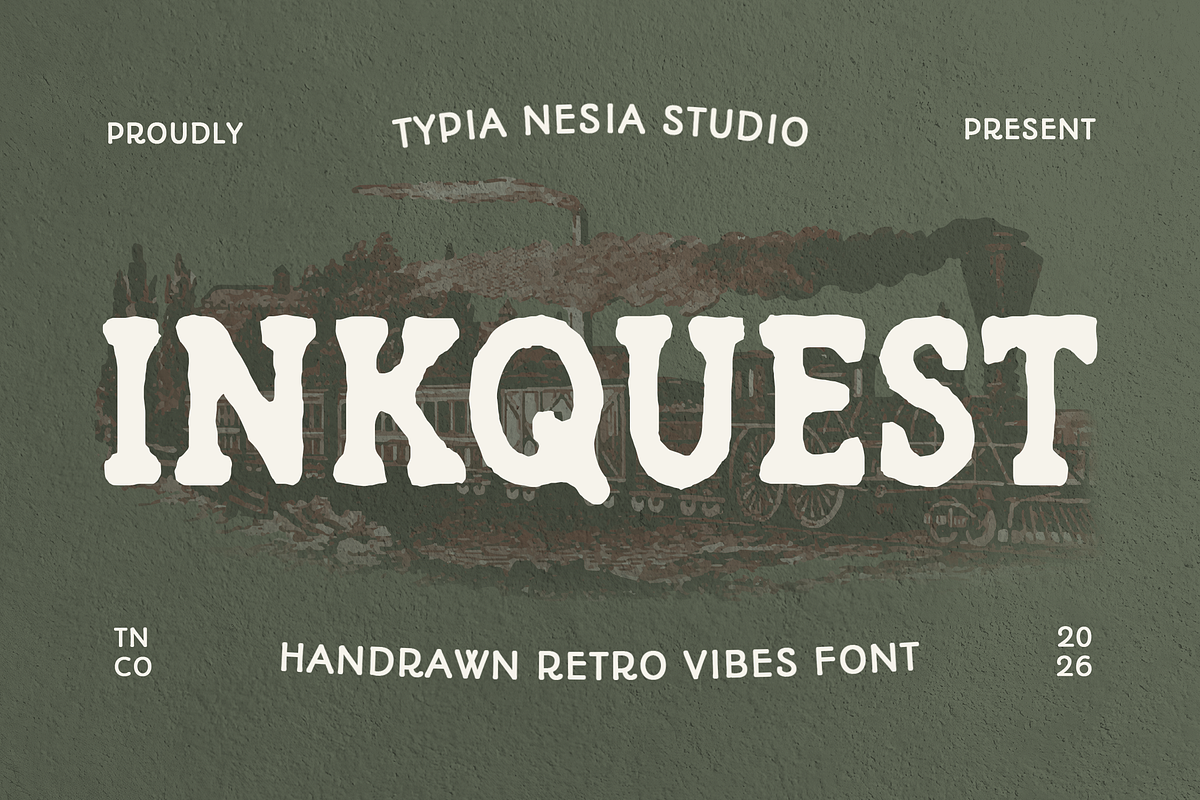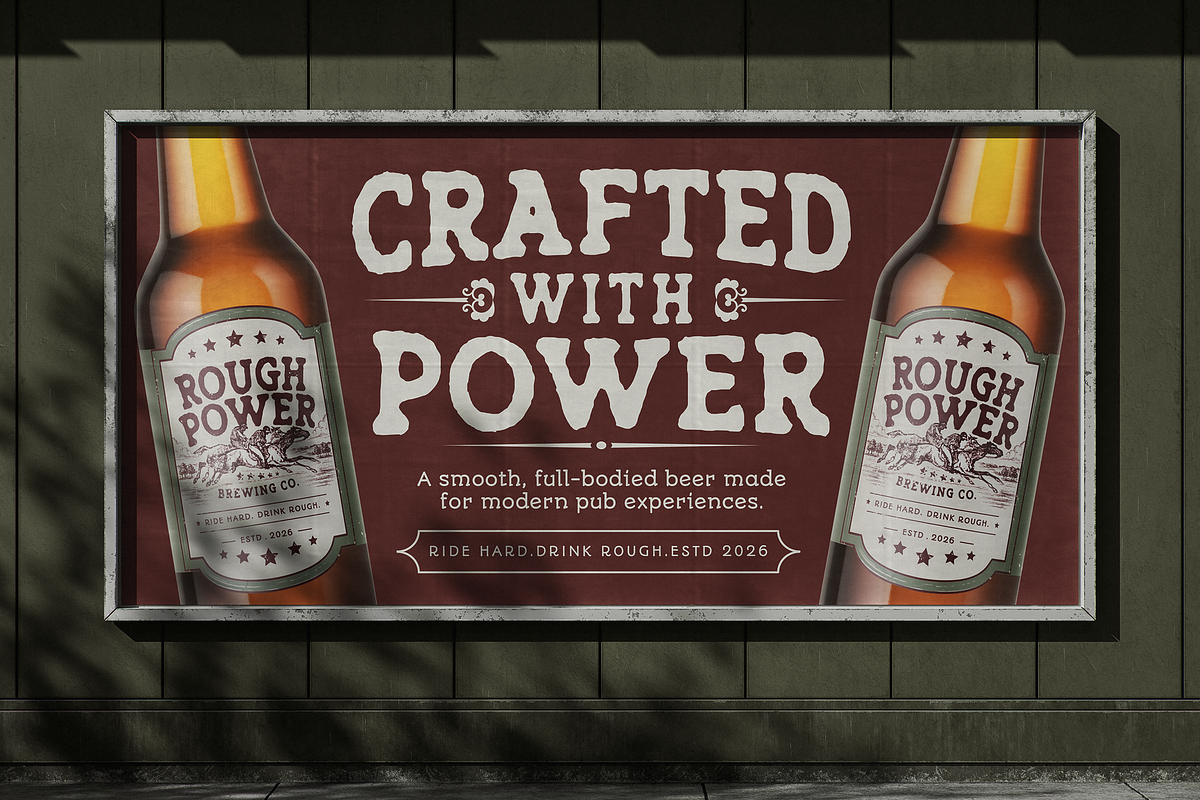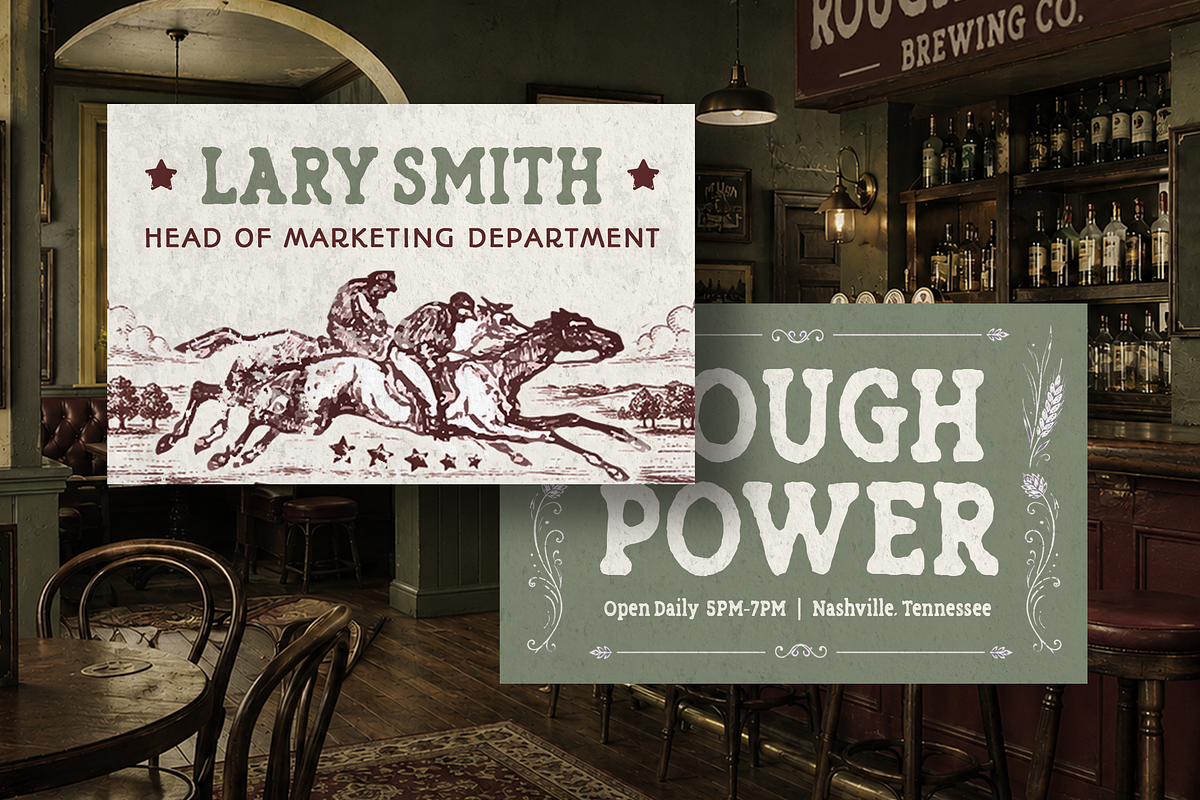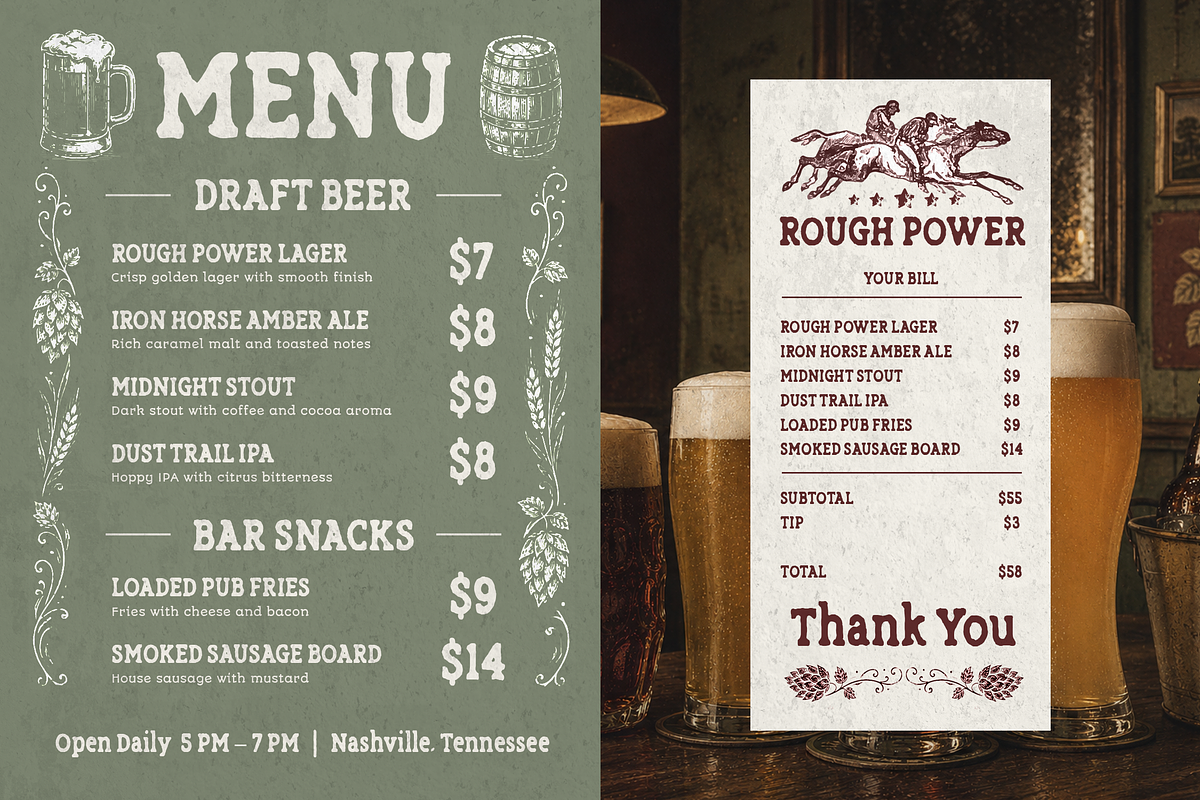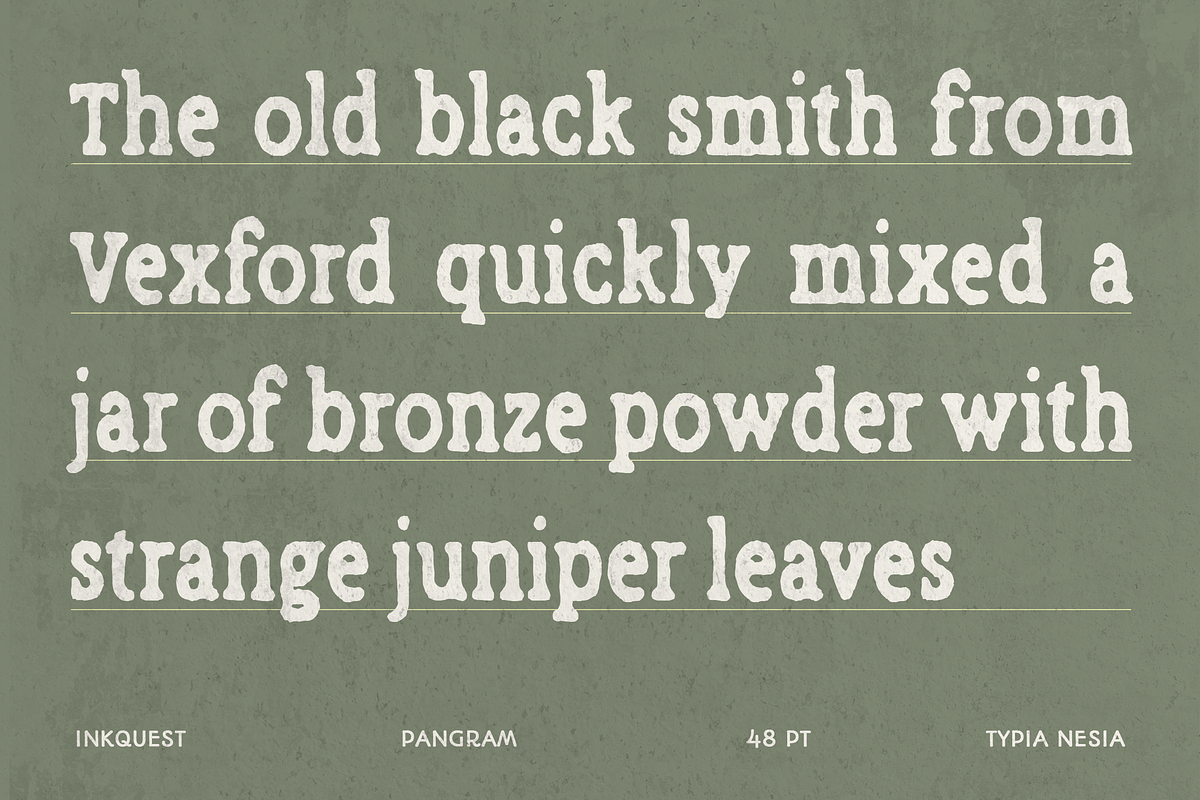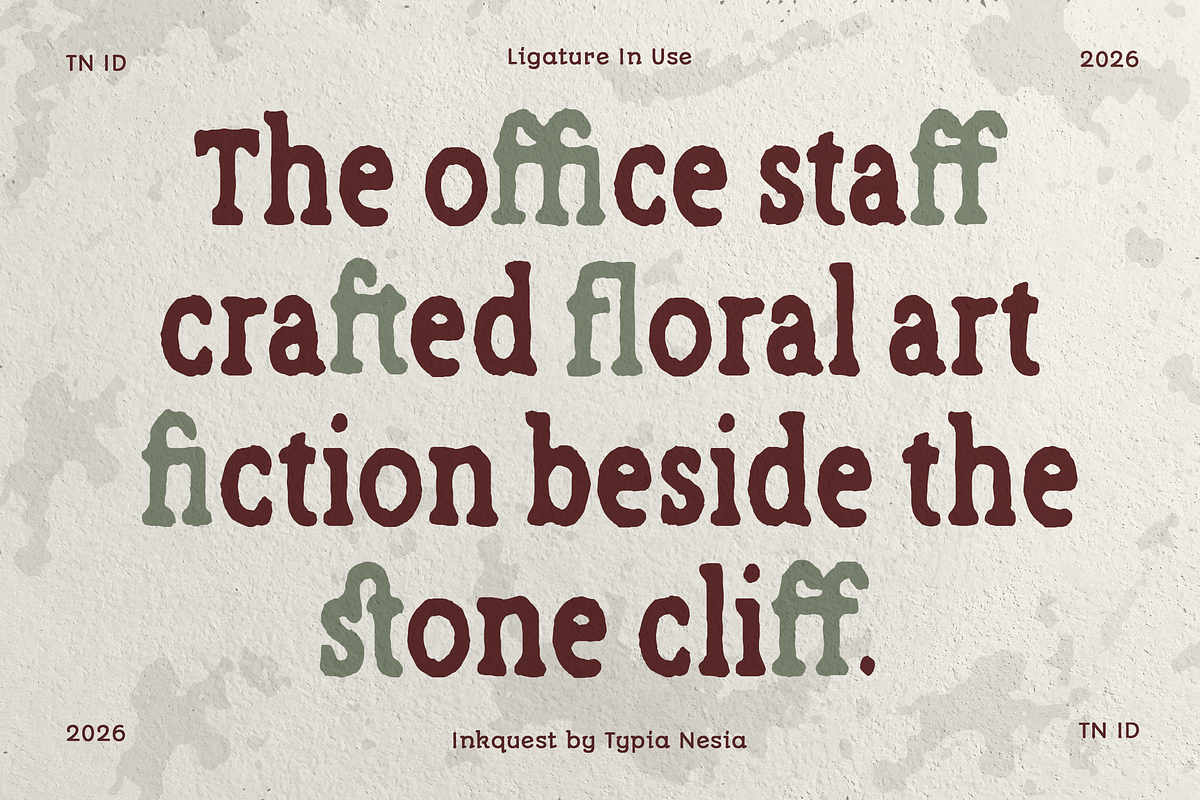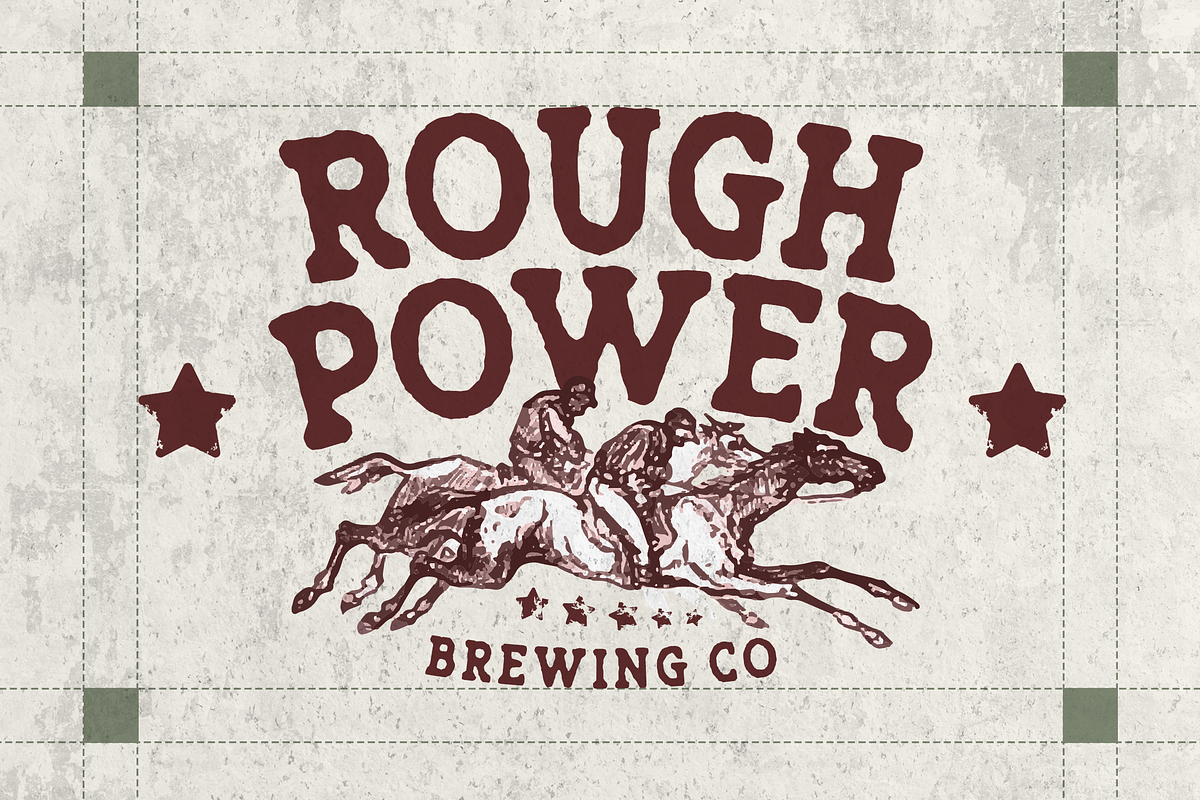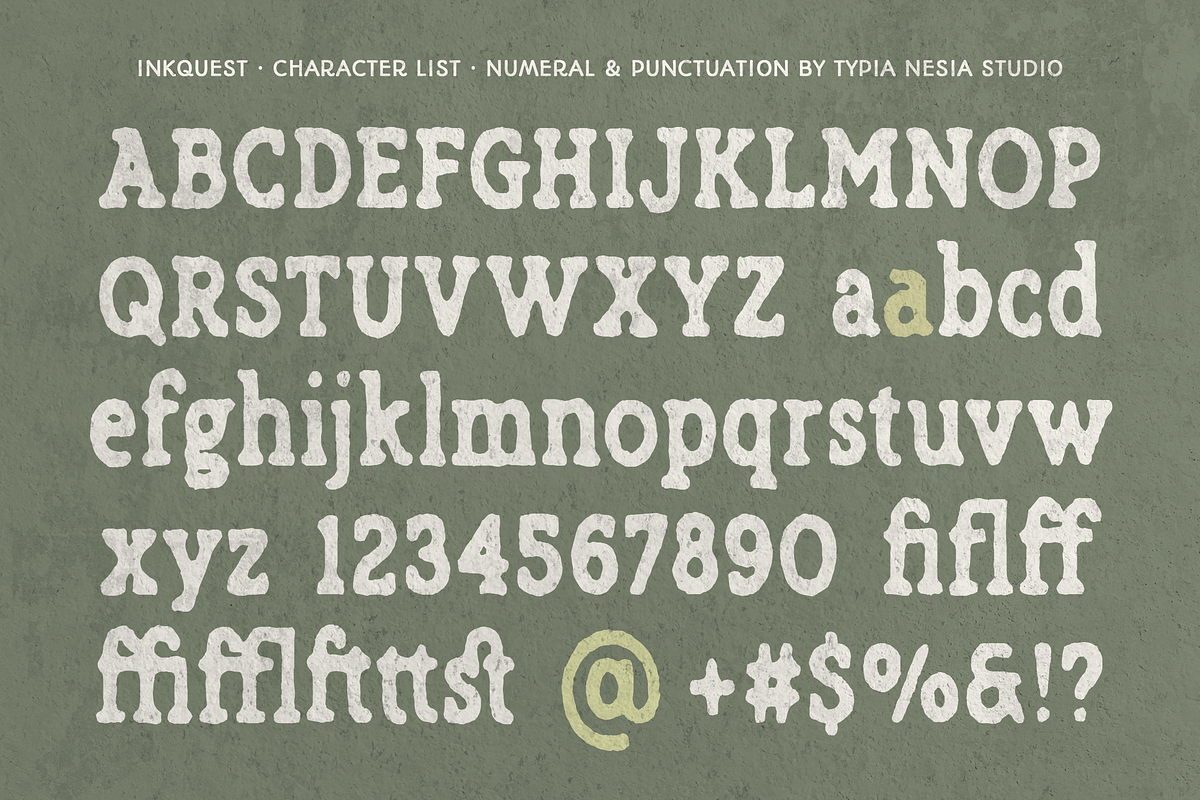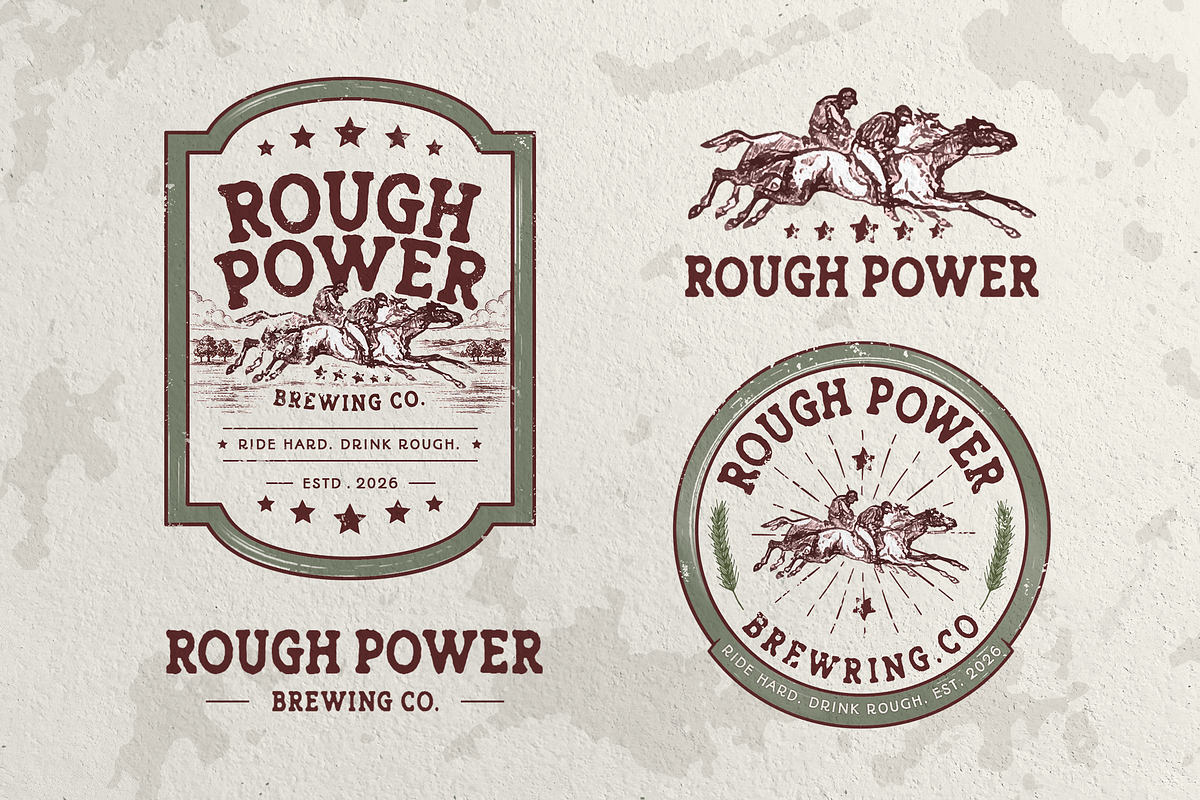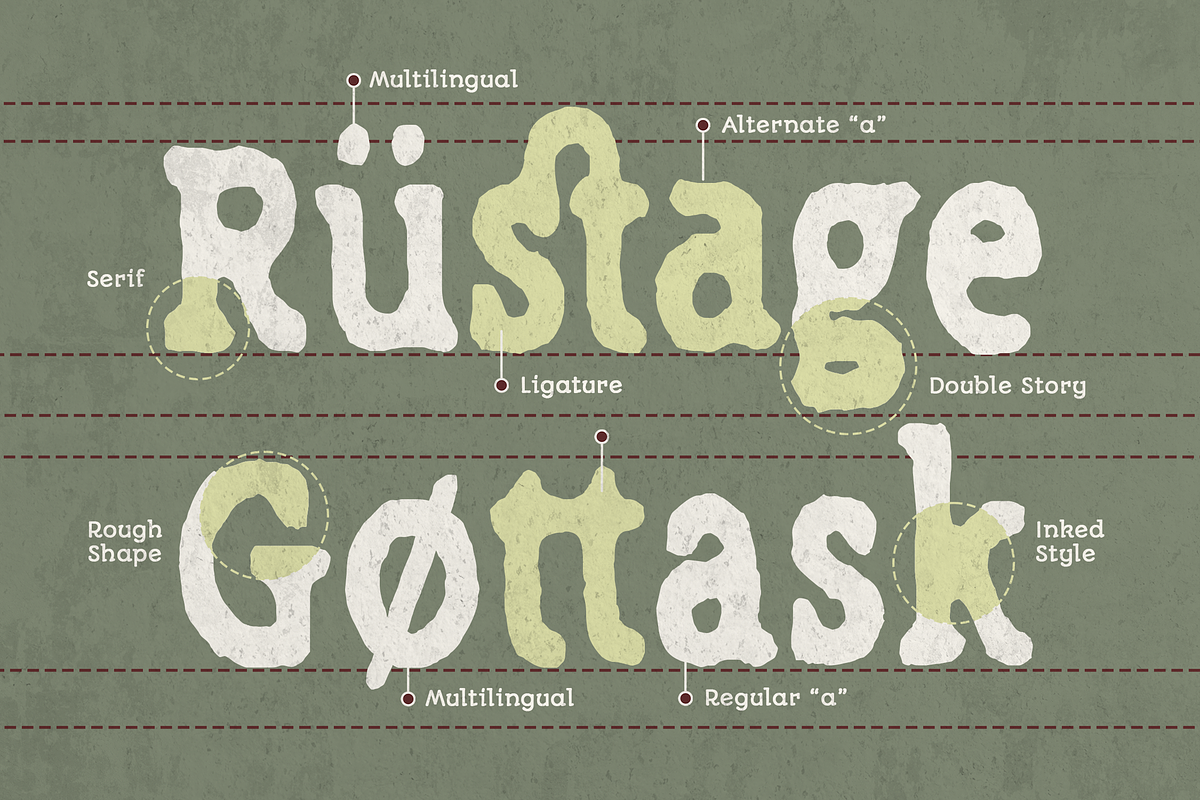
Inkquest - Rough Vintage Slab Serif
Inquest - Handdrawn Retro Display Font with Vintage Rustic Style
Inquest is a handdrawn retro display font featuring organic letterforms, rustic details, and a timeless vintage character. Inspired by classic Americana, old packaging, and nostalgic signage, it delivers a warm and authentic appearance that brings personality and charm to every design.
Perfect for branding, packaging, product labels, coffee shops, food and beverage businesses, posters, editorial layouts, social media graphics, and other vintage-inspired creative projects. It features multilingual support, alternates, numbers, punctuation, and handcrafted details that help create a distinctive and memorable visual identity.
Bring timeless character to your designs and create visuals that feel authentic, memorable, and full of vintage charm.